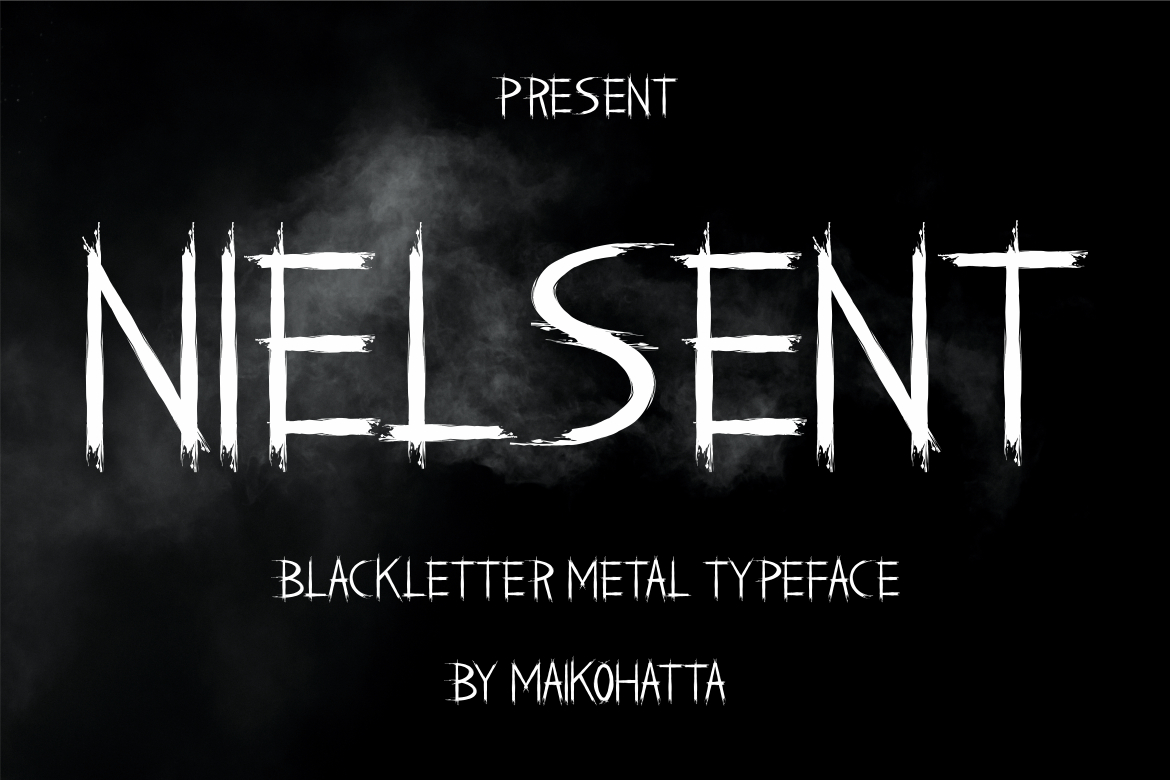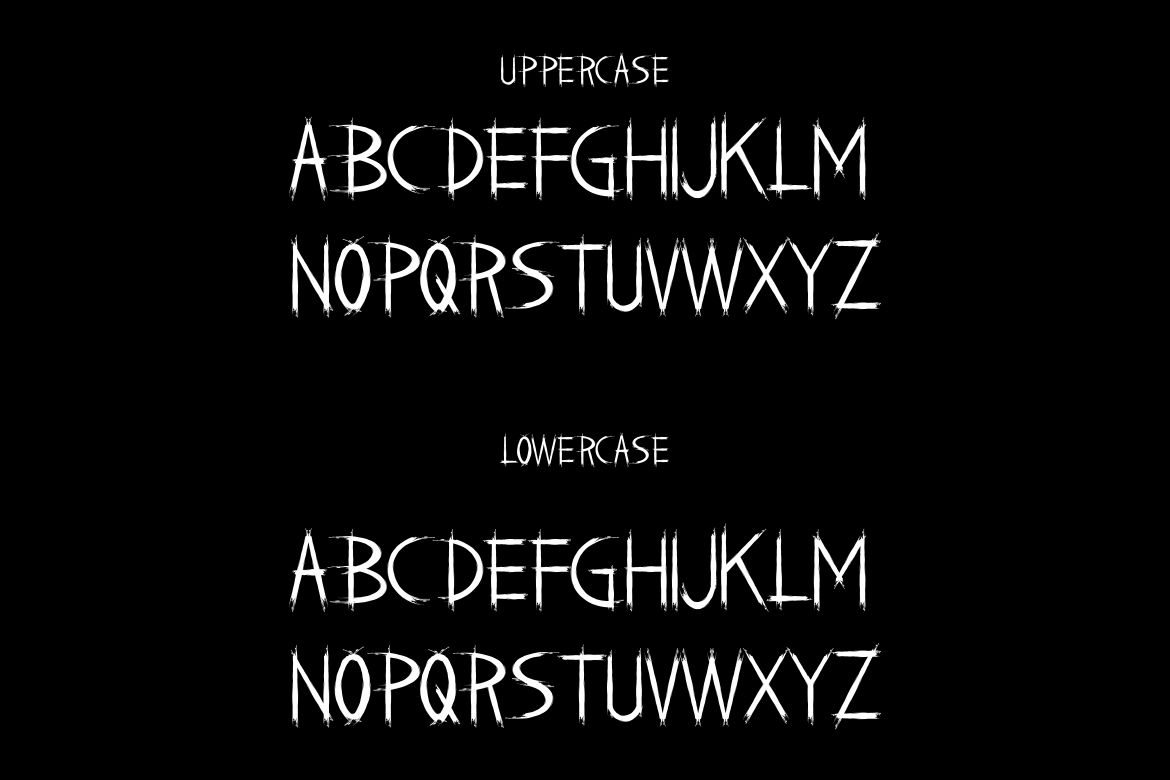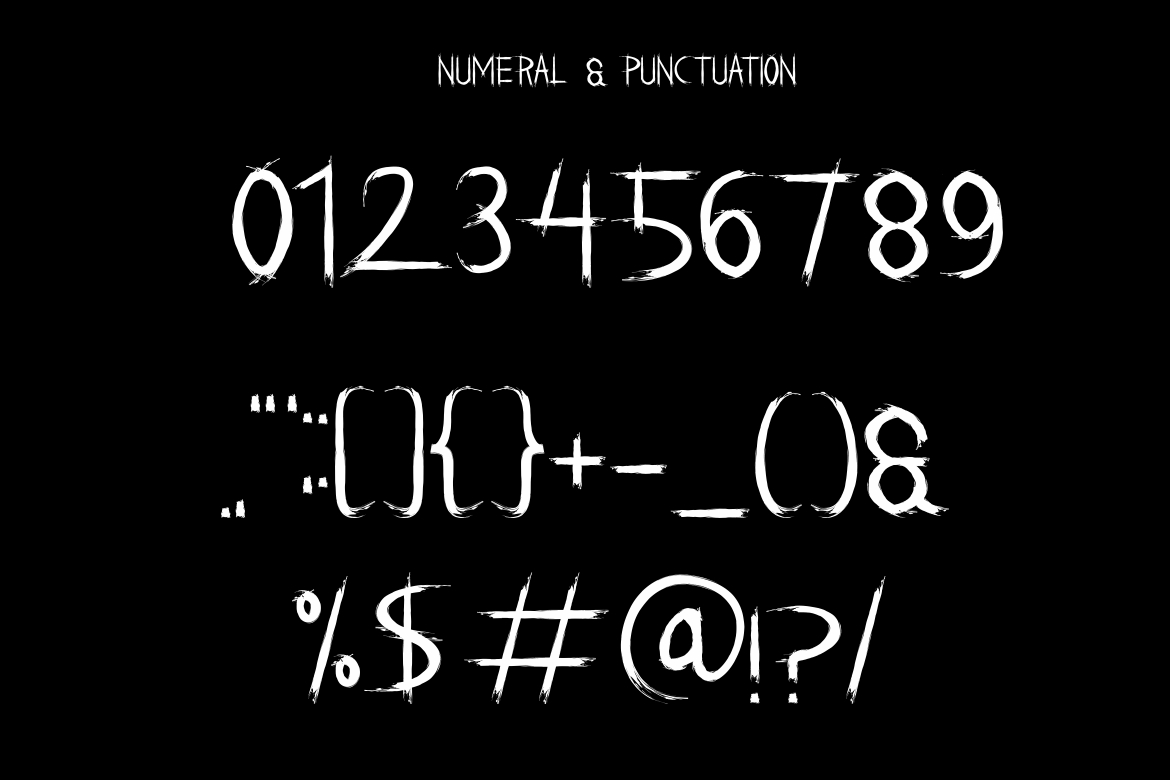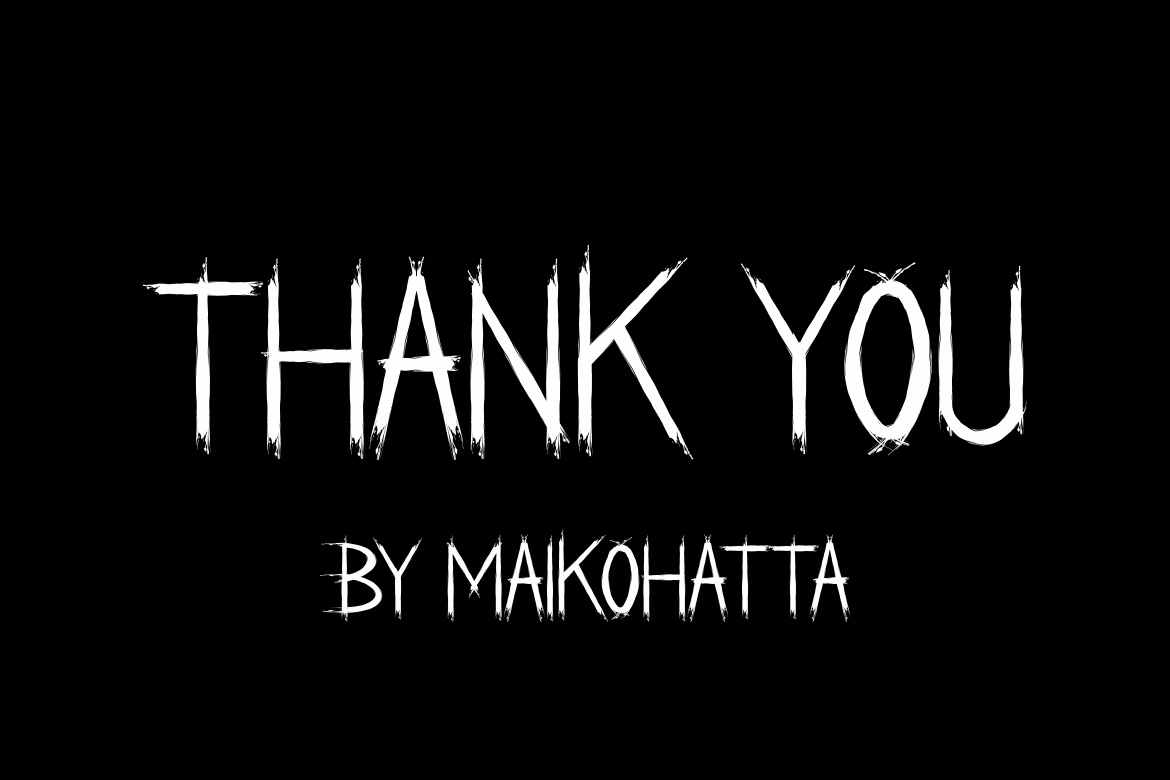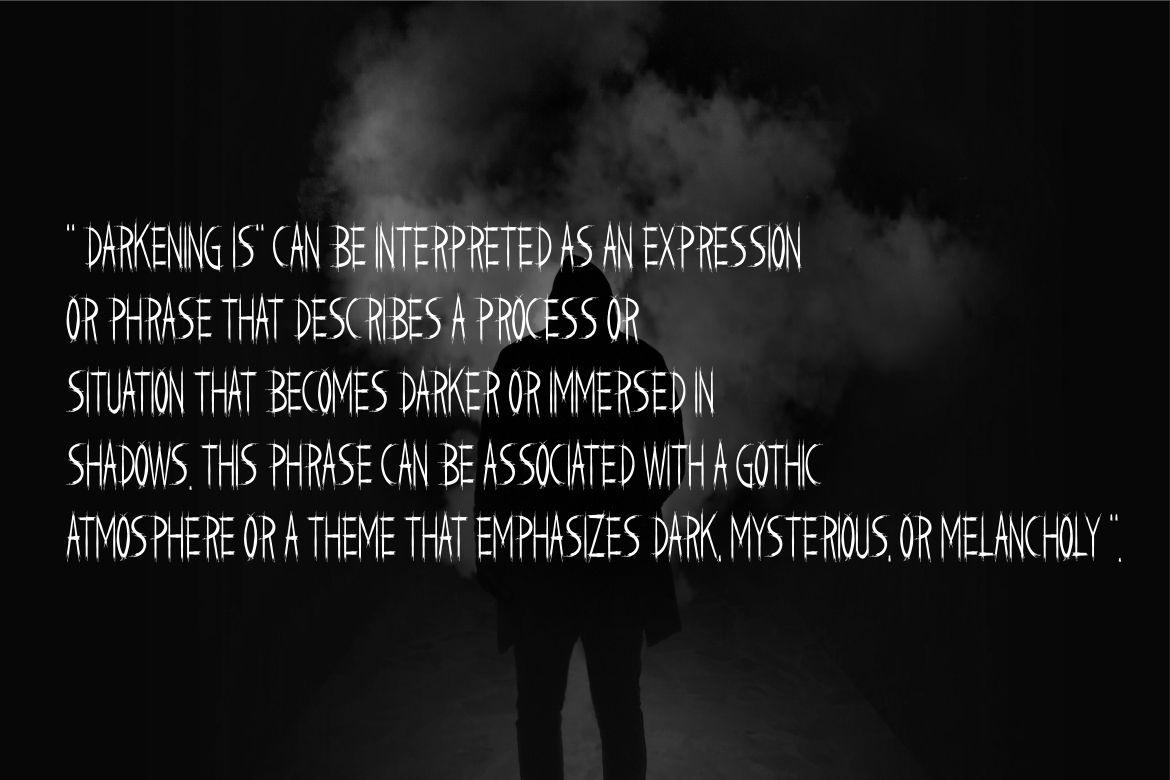
Nielsent Font
About Nielsent Font
**Nielsent** Blackletter Metal Typeface
**Nielsent** is a distinct, highly detailed, and Horror Metal font. It would make a great choice for exquisite retro-urban designs, tattoo business branding, logos, vintage designs, and more.